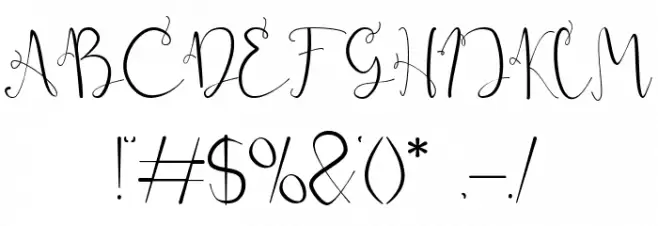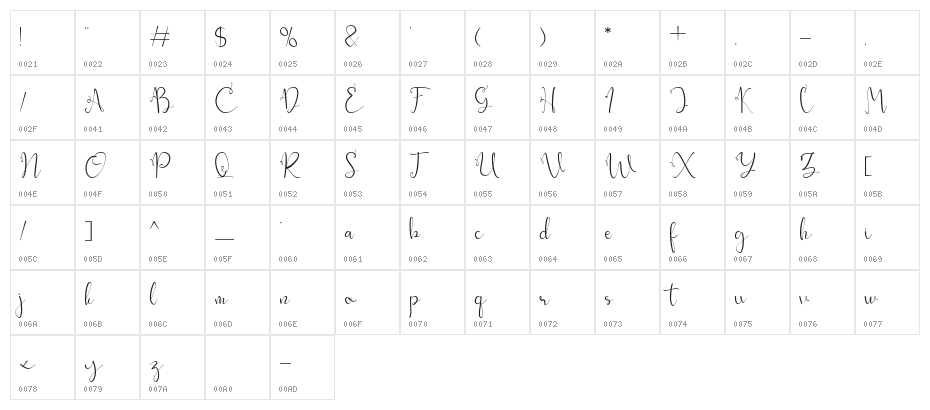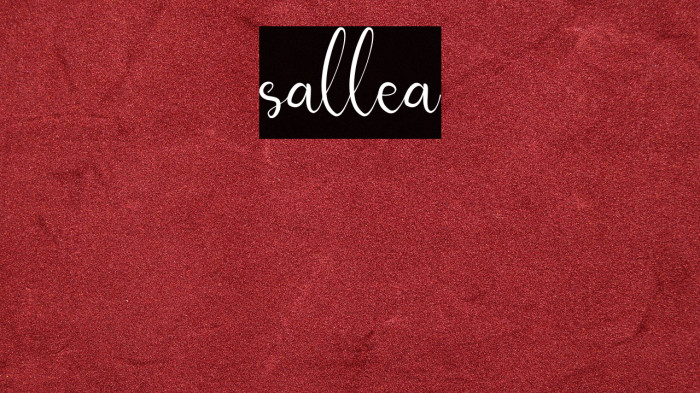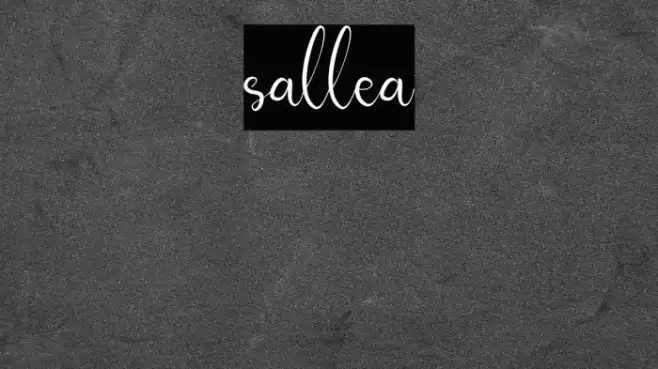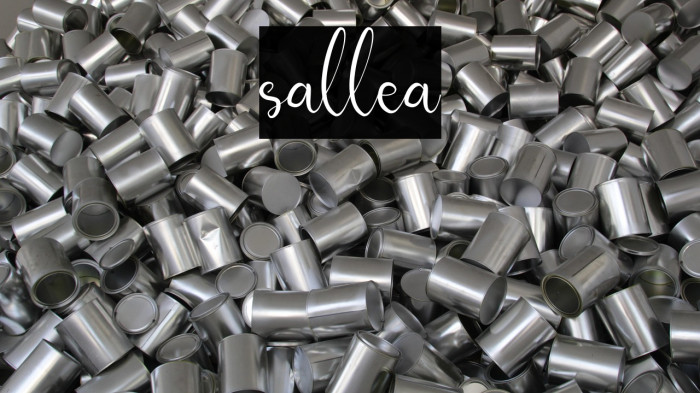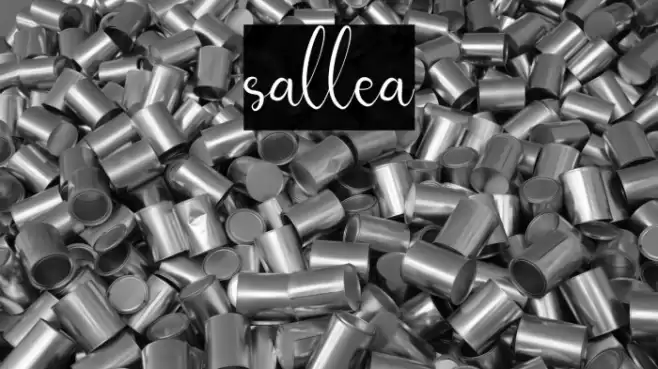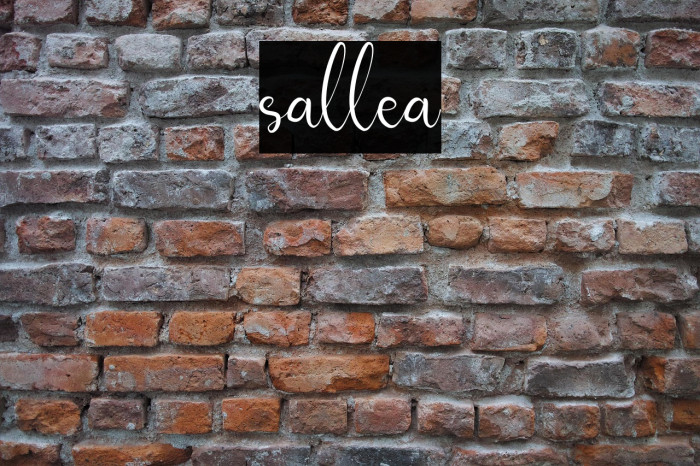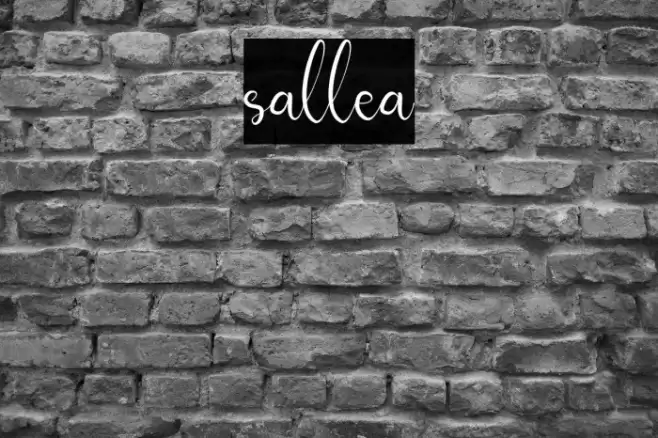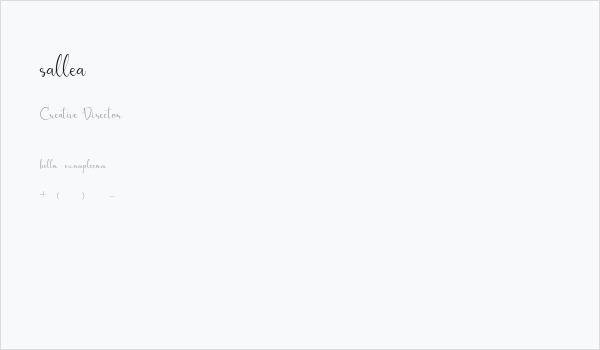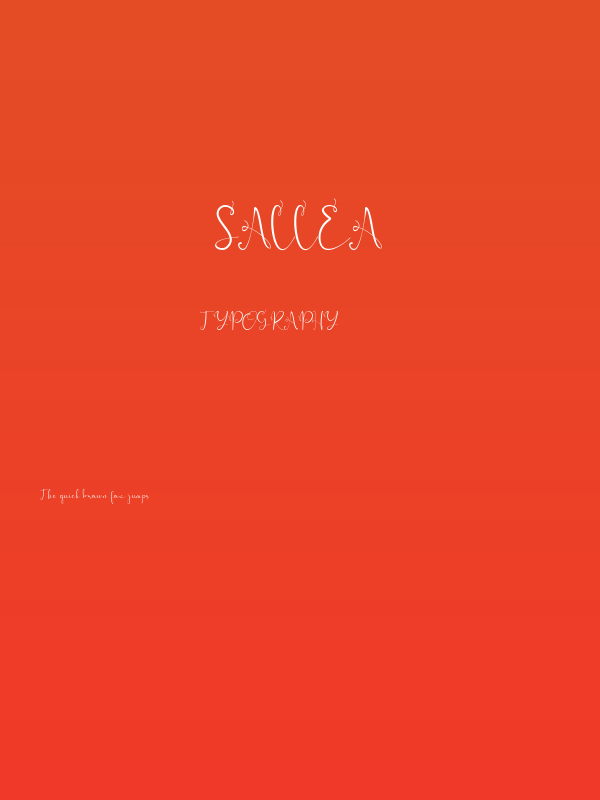
sallea Font
sallea Description
This font features an elegant and whimsical script style, characterized by its flowing and interconnected letterforms. Each character is adorned with delicate swirls and loops, giving it a playful yet sophisticated appearance. The uppercase letters are particularly ornate, with extended flourishes that add a touch of drama. The lowercase letters maintain a consistent style, offering a harmonious balance with the uppercase. The numerals and special characters are designed to match the overall aesthetic, ensuring a cohesive look across all text. This font is perfect for projects that require a touch of elegance and creativity.
| Proposed Projects | Ideal for wedding invitations, greeting cards, branding, and any design requiring a touch of elegance and creativity. |